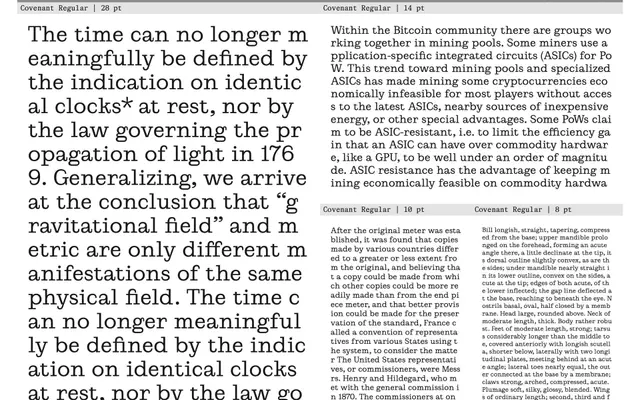
A text serif from Proof of Words spanning seven weights from ExtraLight to Black, each with a matching italic.
Fourteen styles run across seven weights, covering ExtraLight through to Black with corresponding italics throughout. The specimen shows the family performing capably at small text sizes and at large display scale, suggesting a design intended for continuous reading as much as headline use. The weight range gives it flexibility across editorial, book and identity applications.
The specimen text and weight range suggest a text-oriented serif with classical proportions; the broad weight range from ExtraLight to Black with italics throughout is consistent with a transitional or humanist serif designed for both text and display use.